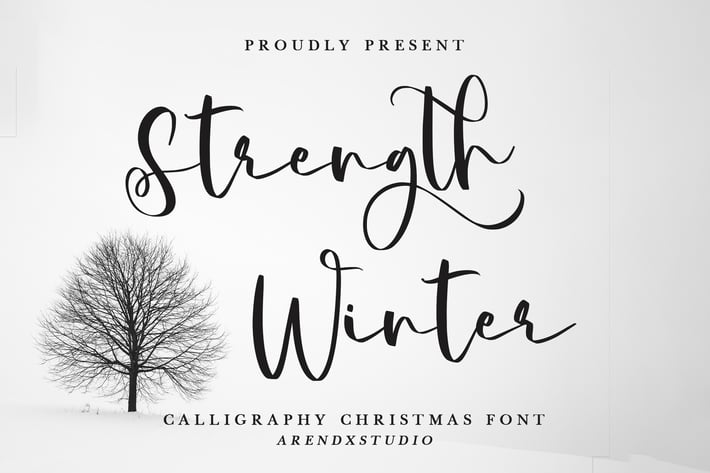
Strength Winter - Calligraphy Christmas Font
Strength Winter - Calligraphy Christmas Font is a font with distinctive handwritten characters perfect for branding projects, logos, wedding designs, media posts, advertisements, product packaging, product designs, labels, photography, watermarks, invitations, stationery, and any project who need handwritten dishes.